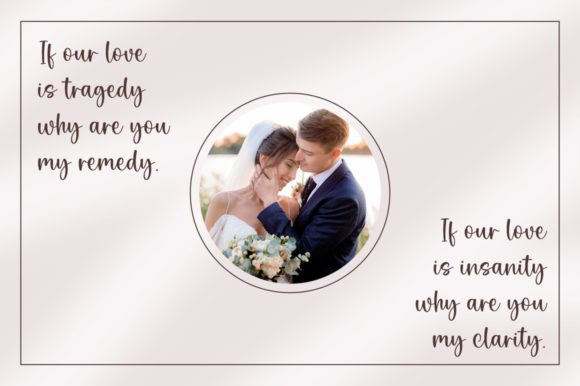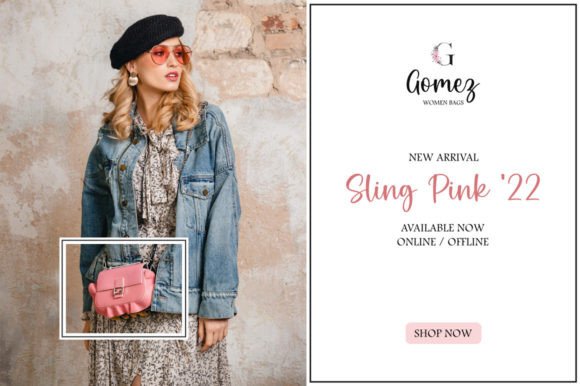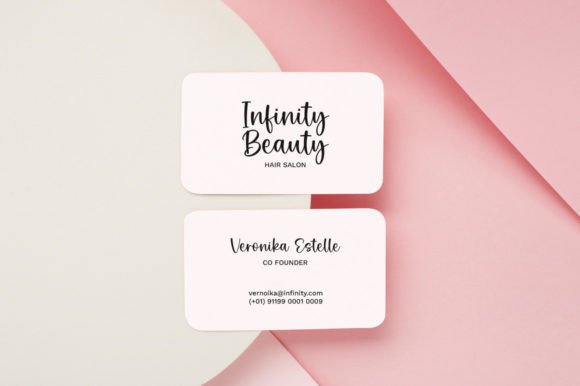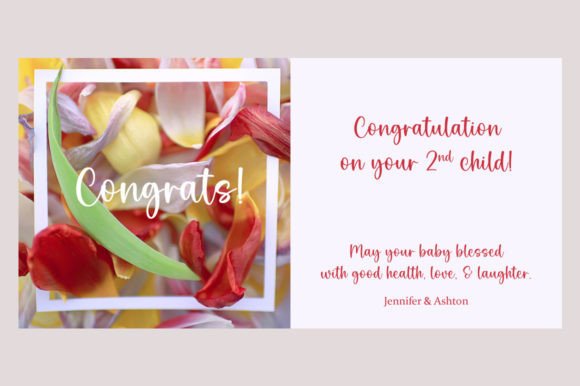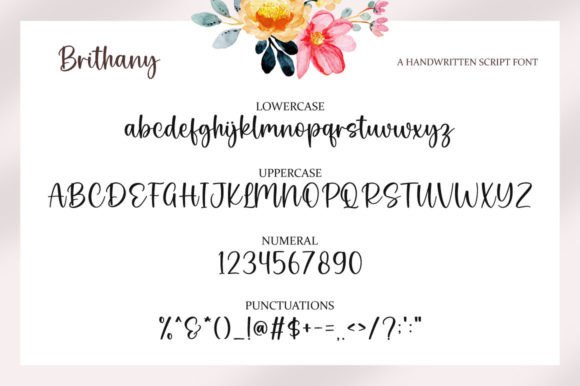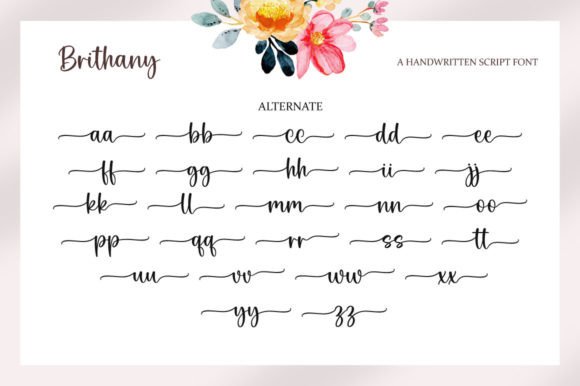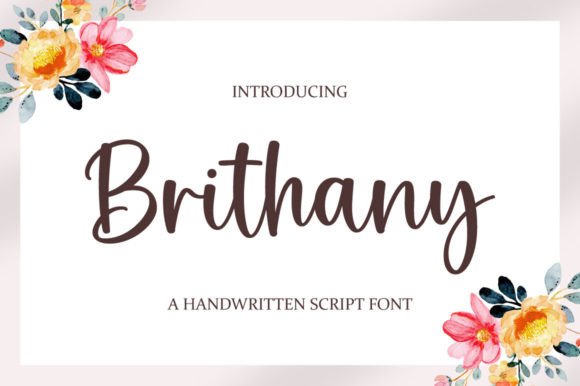
The Hunt for the Perfect Font: Discovering Brithany
I still remember the frustration of scrolling through font after font, searching for the perfect one to bring my design project to life. It was for a client’s branding project, and I needed something that would capture the essence of their business – elegant, yet playful. As I sifted through my font library, I stumbled upon Brithany, a lovely and timeless handwritten font that instantly caught my eye. In this article, I’ll share my experience with Brithany, its features, and how to make the most of this beautiful font.
An Honest Review of Brithany
What I Love About Brithany
- ✨ Timeless and versatile: Brithany’s classic handwritten style makes it suitable for a wide range of design projects, from logos and branding to quotes and social media graphics.
- ✅ PUA-encoded for easy access: Brithany is PUA-encoded, which means you can easily access all the glyphs and swashes, giving you more creative freedom.
- 💫 Elegant and sophisticated: The font’s elegant strokes and beautiful swashes add a touch of sophistication to any design.
While Brithany is an excellent font, there are a few things to keep in mind:
- ⚠️ Limited use in very small sizes: As with many handwritten fonts, Brithany may not be the best choice for very small text sizes, as some details may get lost.
- 🤔 Requires some practice to master: To get the most out of Brithany’s OpenType features, you may need to spend some time learning how to use them.
The Story Behind Brithany
Brithany was designed by a talented type designer who wanted to create a font that would evoke a sense of timelessness and elegance. The designer drew inspiration from classic handwritten fonts, adding a touch of sophistication and playfulness to create a unique and versatile font.
Q: What is PUA encoding, and how does it benefit Brithany?
A: PUA (Private Use Area) encoding allows font designers to include additional characters, such as glyphs and swashes, that can be accessed easily. In the case of Brithany, PUA encoding makes it easy to access the font’s beautiful swashes and glyphs.
Q: Is Brithany suitable for body text?
A: While Brithany is a beautiful font, it’s best suited for headlines, titles, and short paragraphs. For body text, you may want to choose a font that’s easier to read.